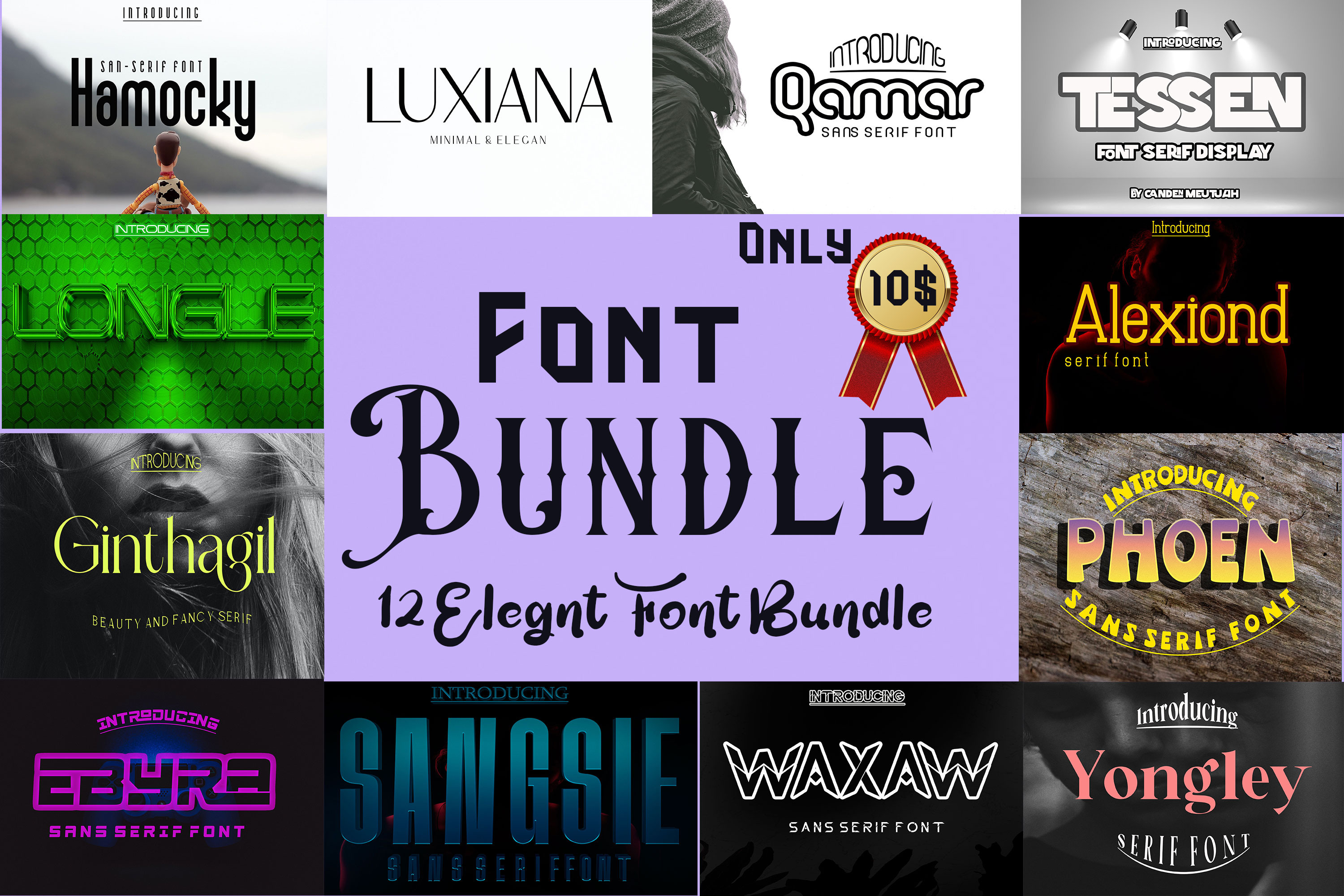
12 Bundles Font Elegant
Introducing the Elegant Font Pack. This massive bundle is a great value, but available for a limited time at ONLY $12! Consisting of 12 fonts, this Elegant Font Pack is perfect for logos, branding, crafts, Instagram, marketing, and more.